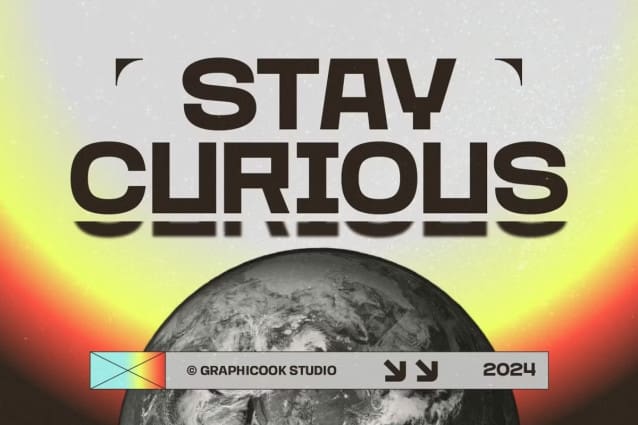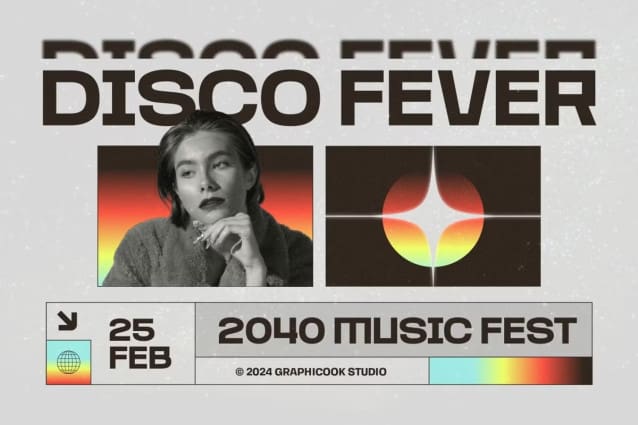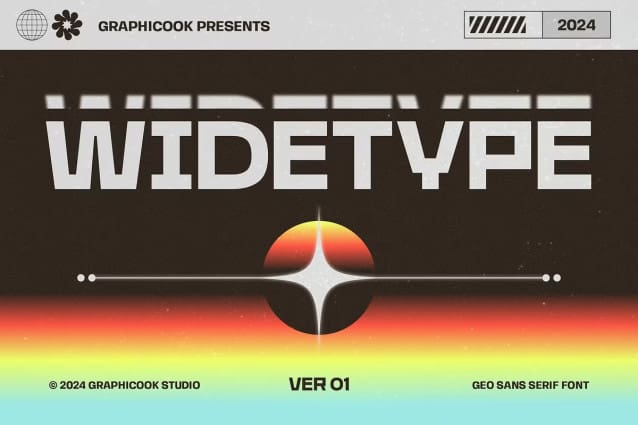
Widetype Font
Widetype Font is a font that inspired by futuristic design that seamlessly combines geometric and grotesque styles with a modern twist. Ideal for logotypes, branding, album covers, and posters
Widetype is perfect for headlines, logotypes, magazines, packaging, quotes, movies, games, cover albums, book covers, and flyers, it’s a perfect solution for creating eye-catching designs that stand out in any context.